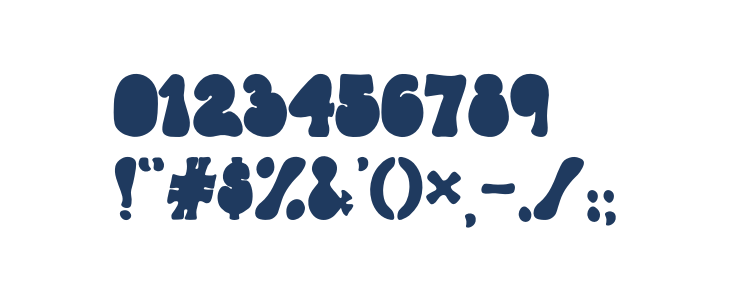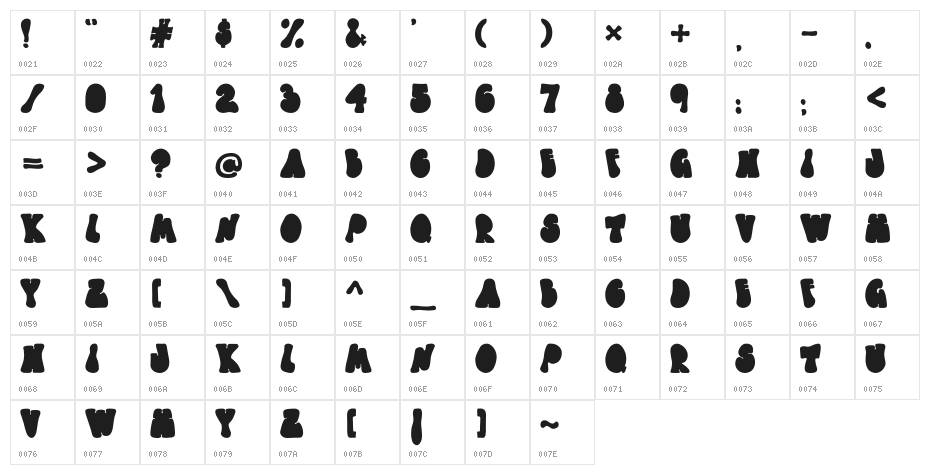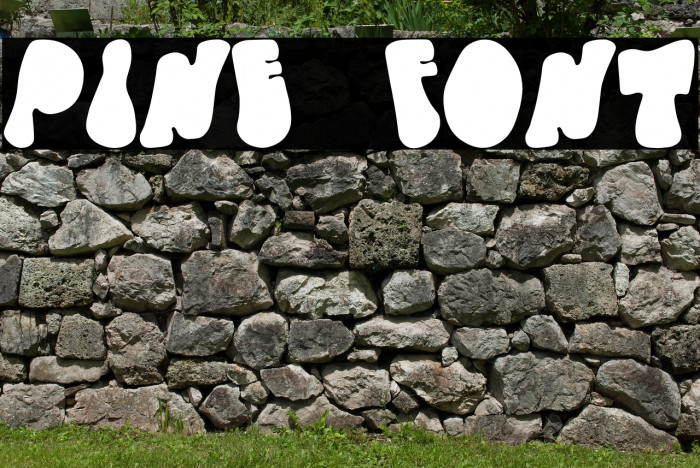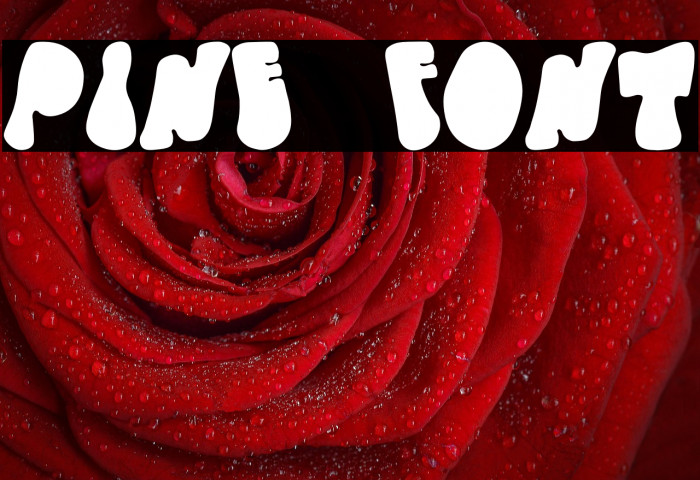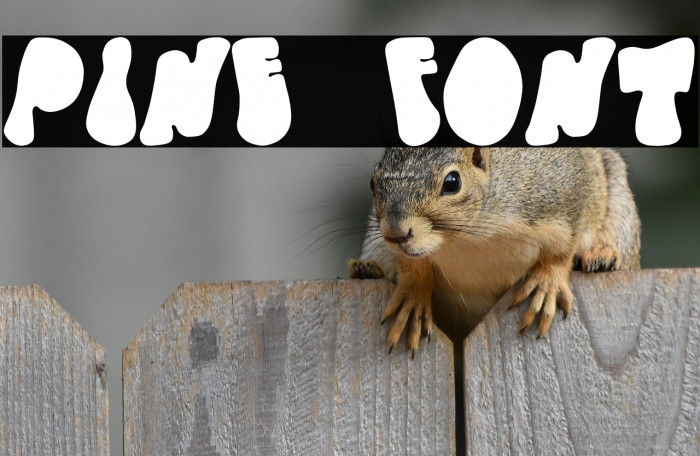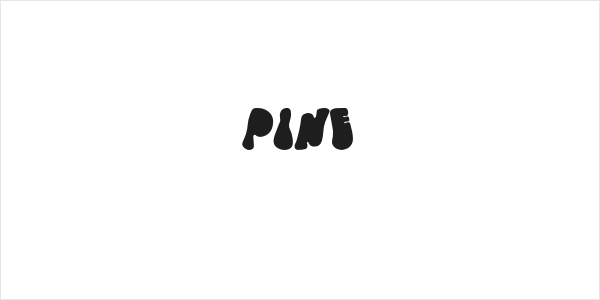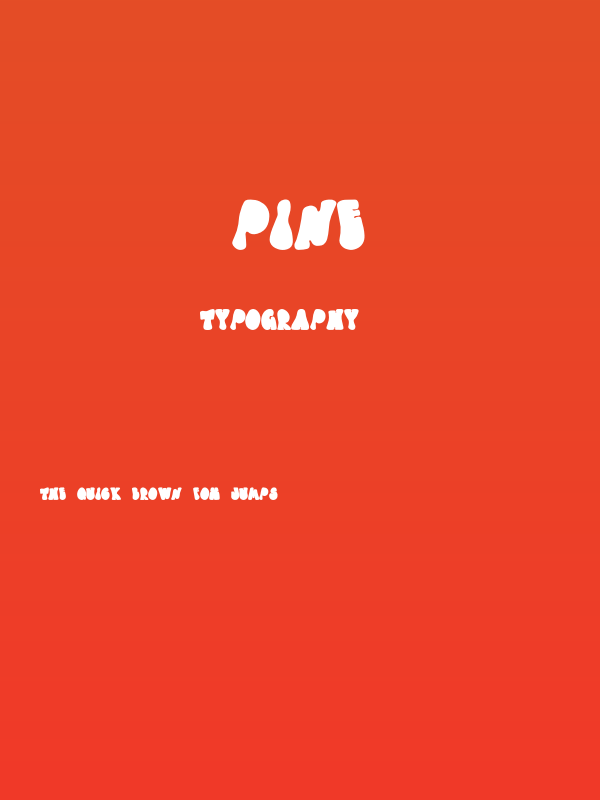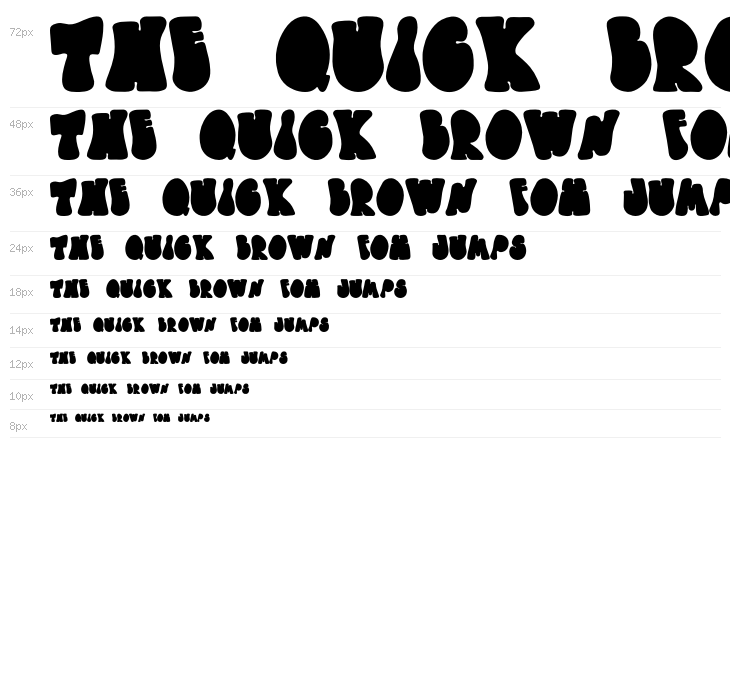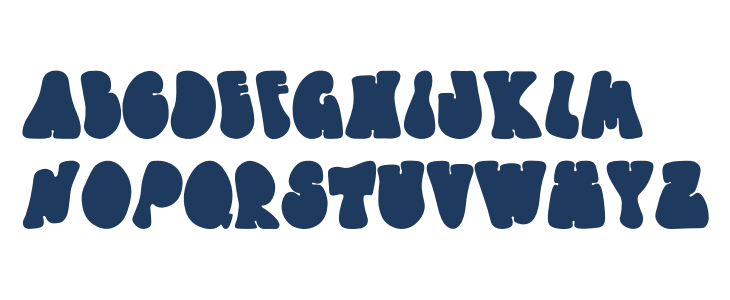
Pine Font
Pine Description
This font features a bold and playful design with exaggerated, rounded shapes that give it a whimsical and fun appearance. The characters are heavily weighted, with thick strokes and a bubbly form that makes them stand out. The overall look is reminiscent of retro or vintage styles, often seen in playful or informal settings. The font maintains a consistent weight throughout, with no variation in stroke thickness, contributing to its bold and impactful presence. The spacing between characters is tight, enhancing the compact and cohesive feel of the text. This font is ideal for creative and eye-catching designs, where a sense of fun and playfulness is desired.
| Overall Style | Retro, Playful |
| Use Case | Logos, Posters, Headlines |
| Proposed Projects | Perfect for children's books, playful branding, party invitations, and retro-themed designs. |